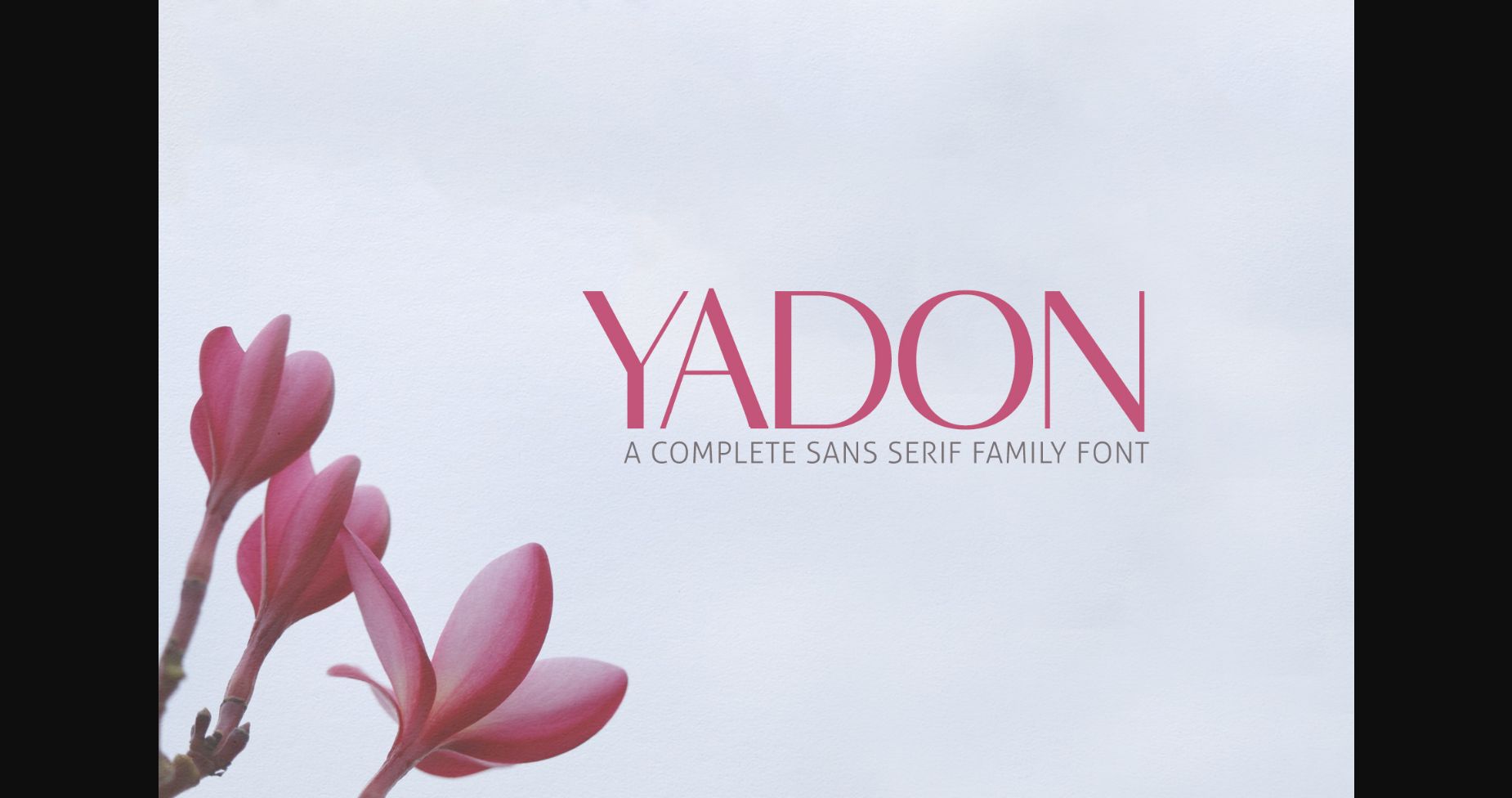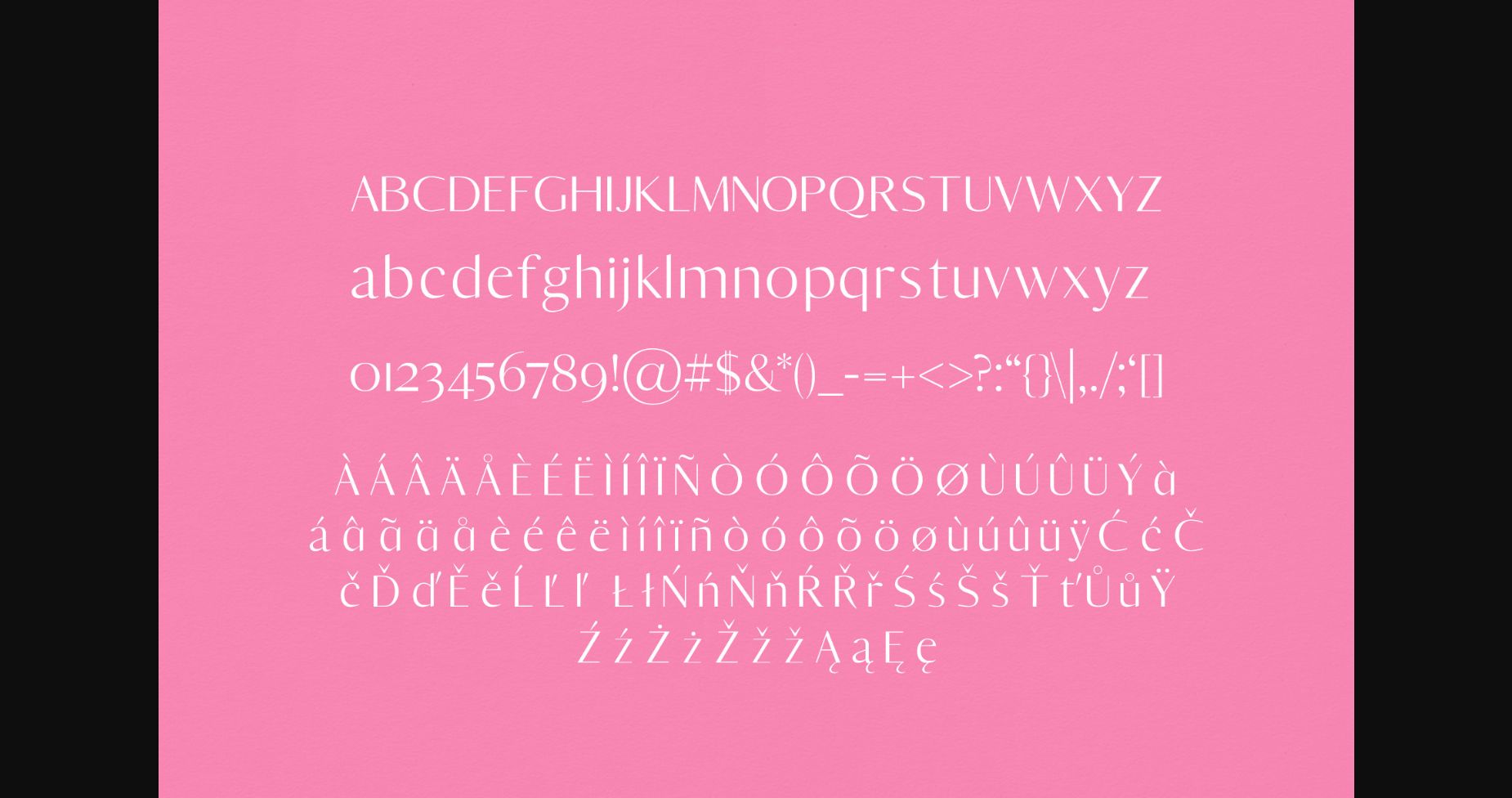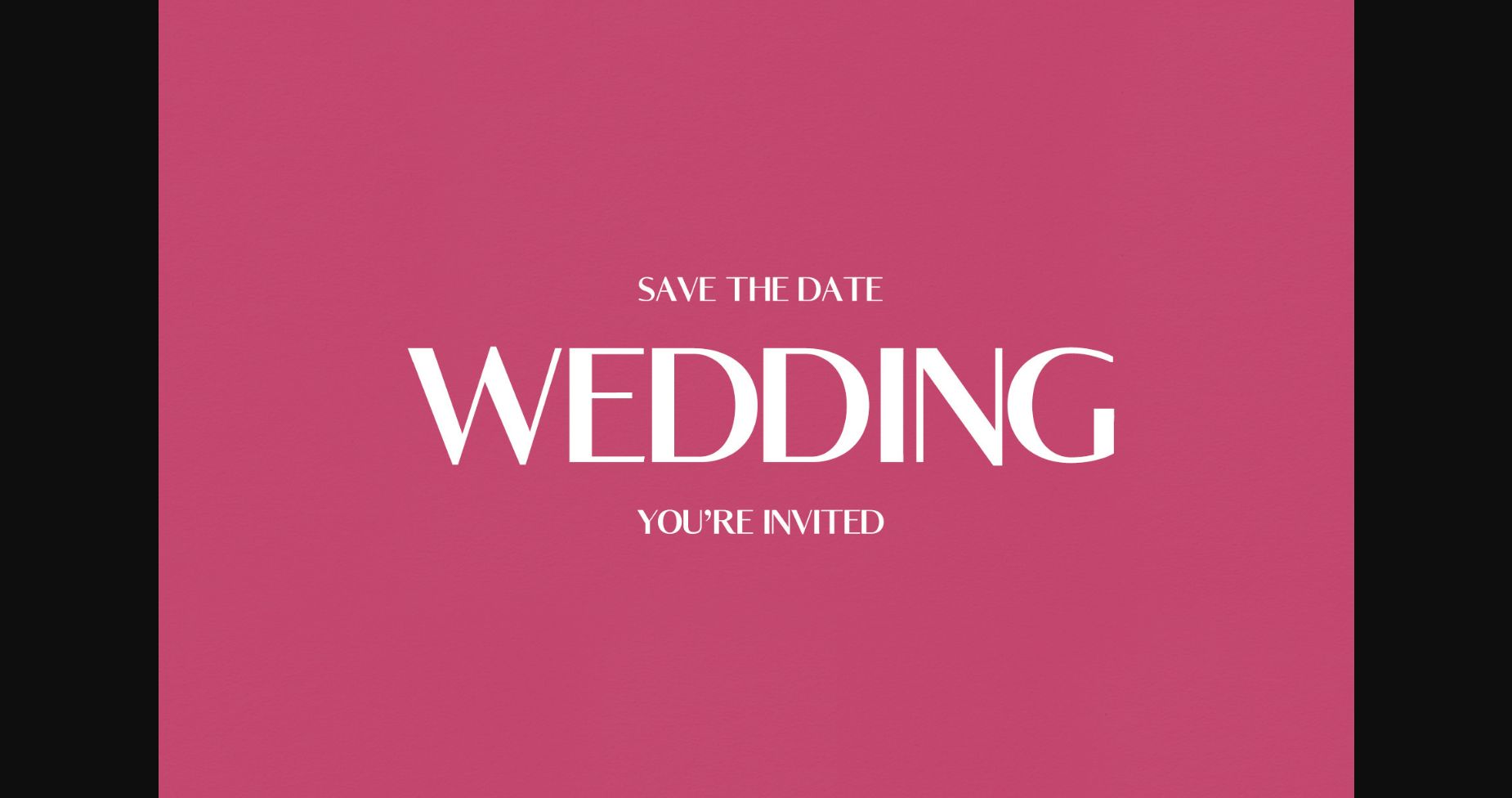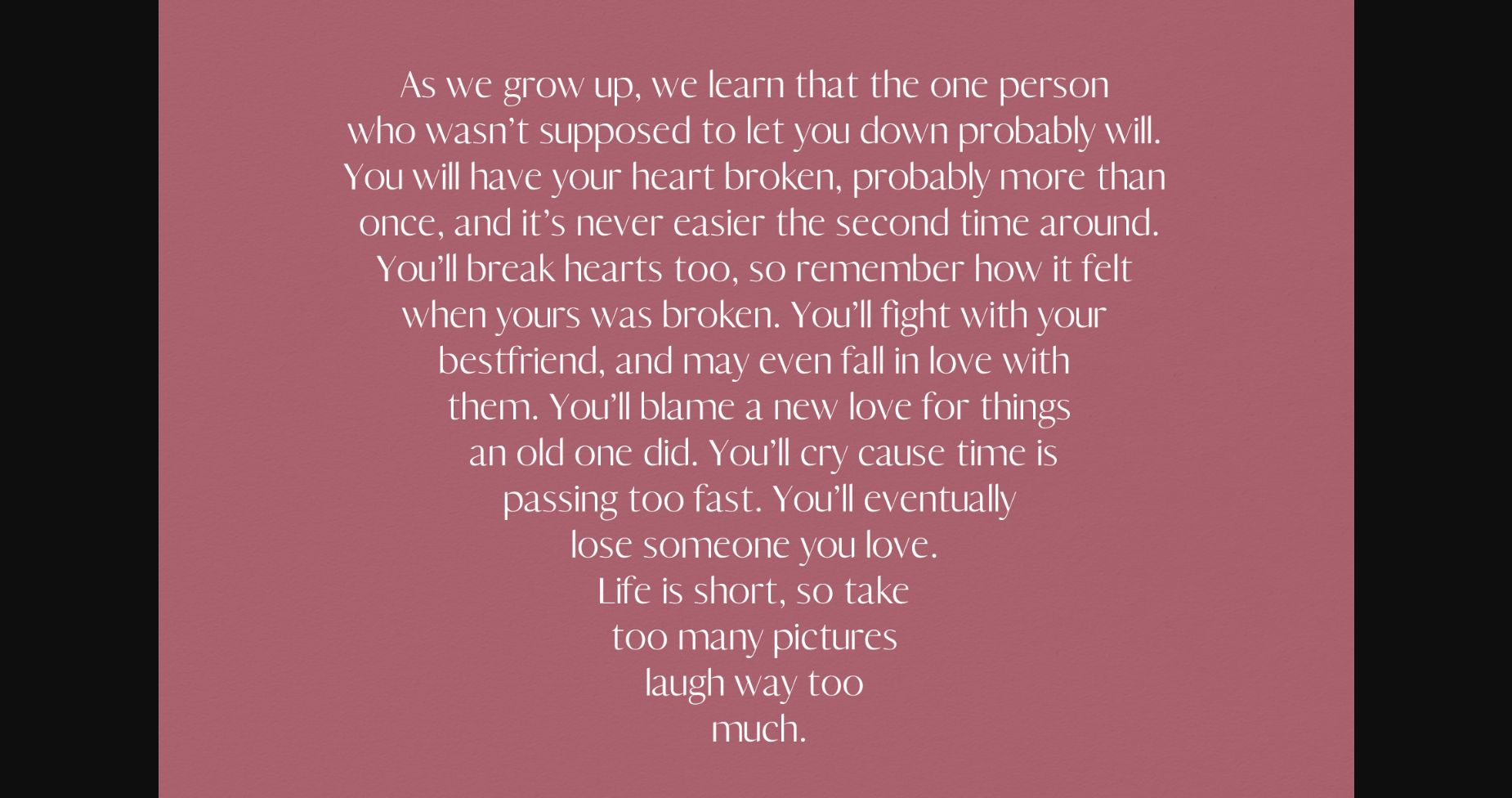
Yadon is a cool sans serif font family that beautifully combines a minimalistic look with a modern and neat style. It’s a great choice for any project that needs to stand out and be easily readable.